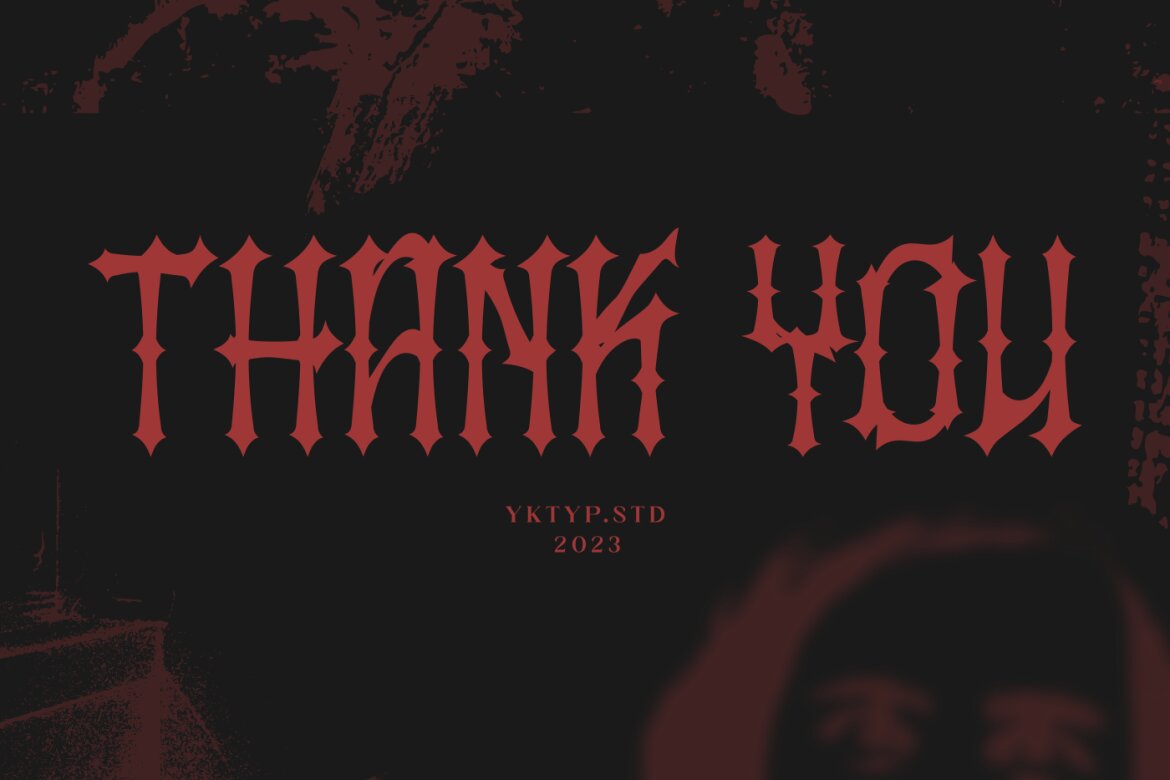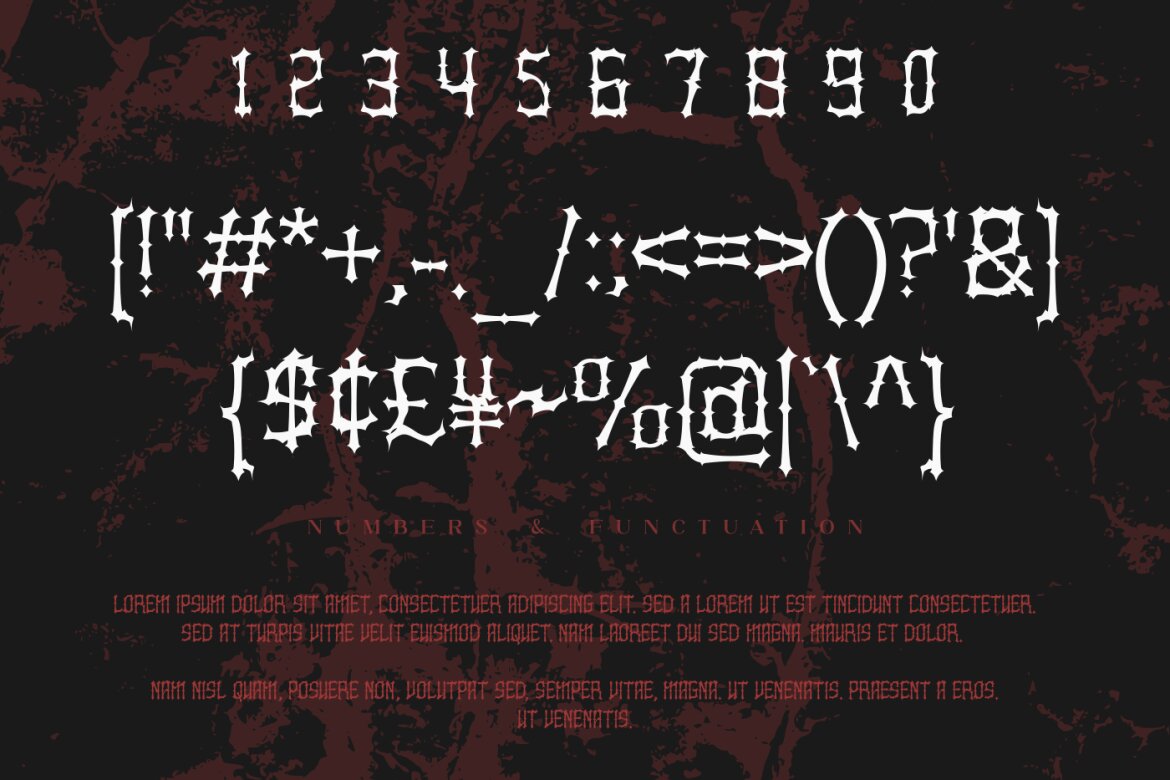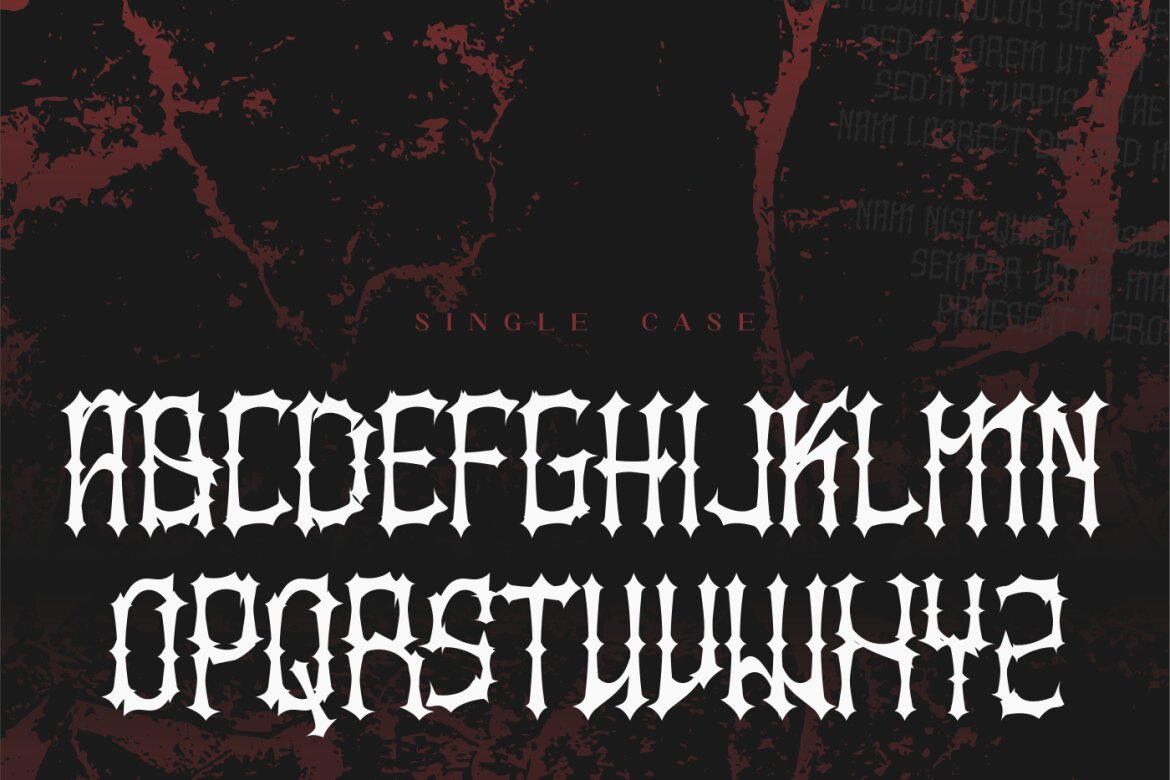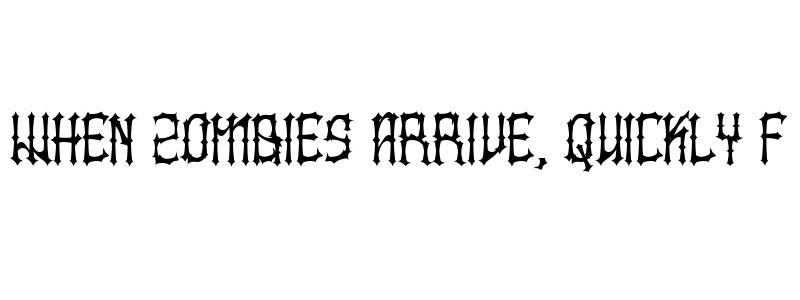
Kruesm - Horror FREE Font
Kruesm
Gritluef - Horror display font
Get ready to give your designs a spine-chilling makeover with this horror display font!
The perfect choice to add an extra dose of fright to your spooky posters, Halloween invitations, and creepy projects
• Allcaps Character